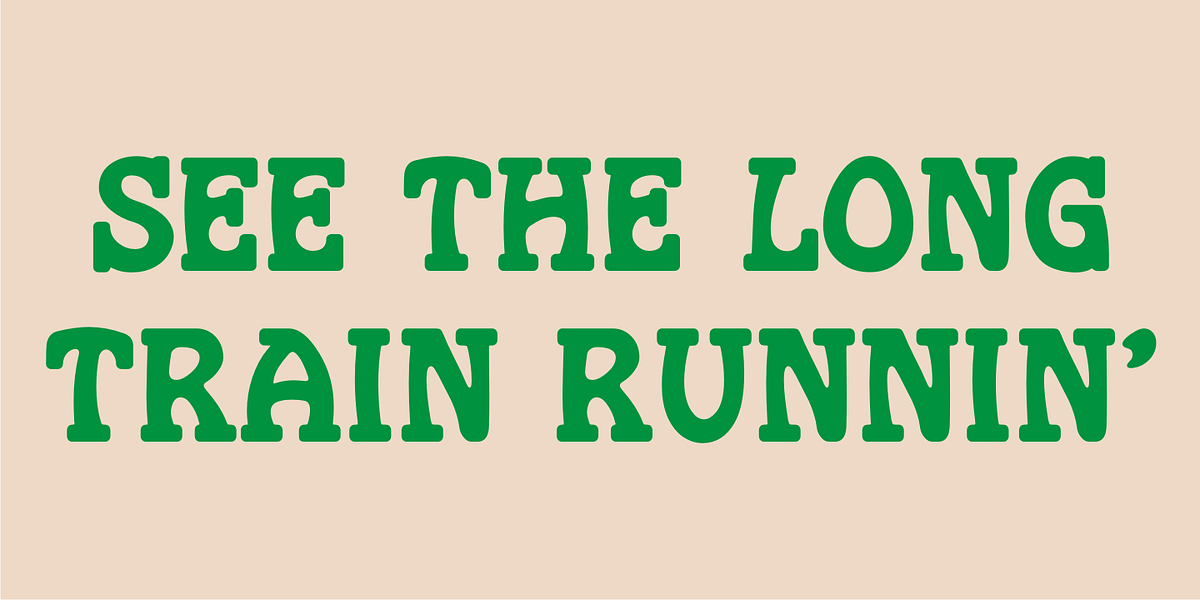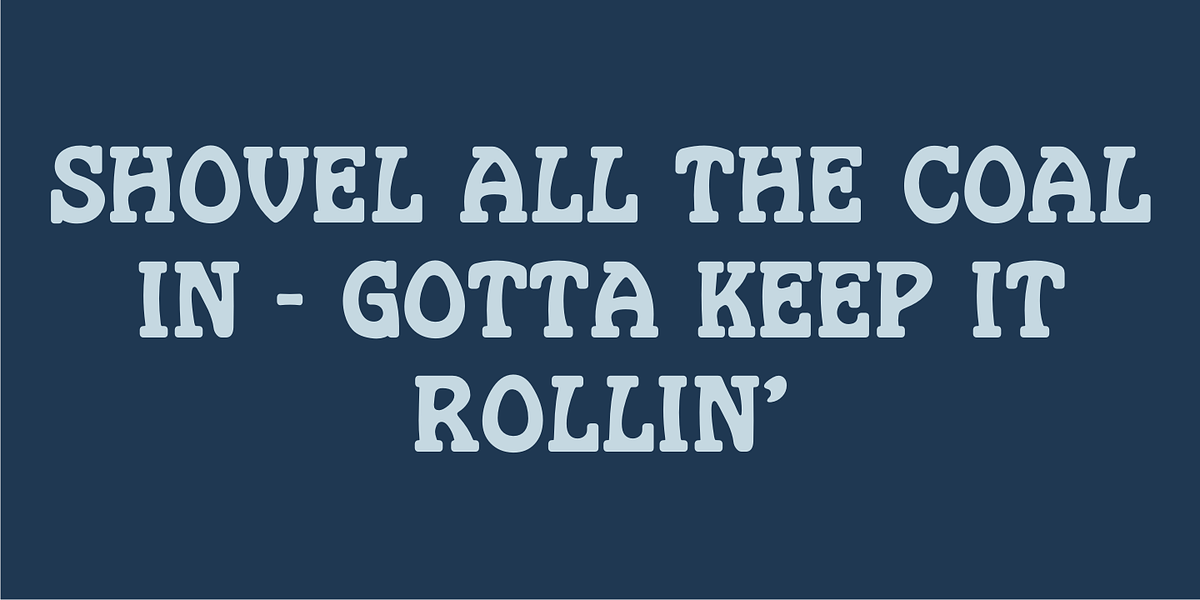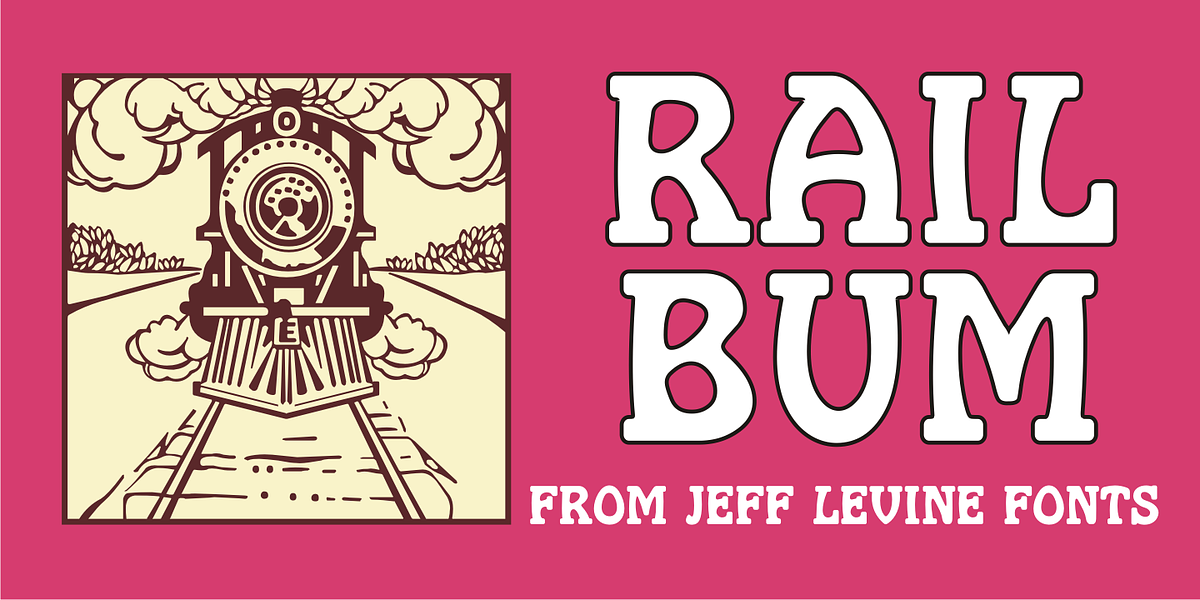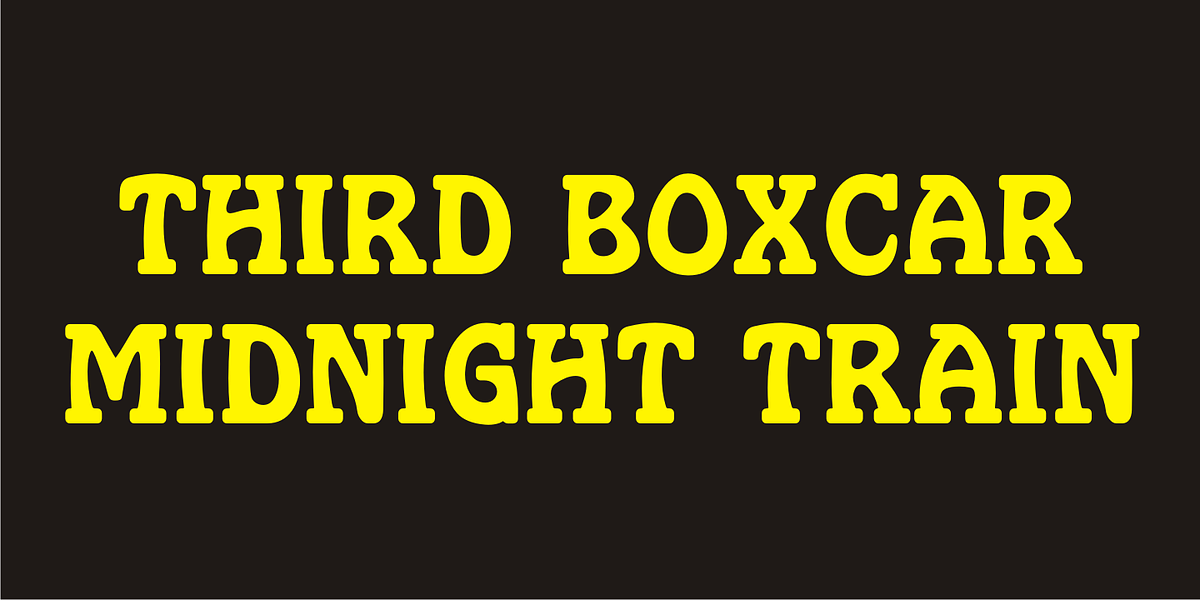
Rail Bum JNL
Morris Fuller Benton's Hobo [designed in 1910] is one of a number of fonts which have been so over-used that many designers shy away from it altogether.
However, Jeff Levine had often wondered what the design might look like it given a serif treatment. The result is Rail Bum JNL, named for the hobos and transients who hitched along on freight cars to ride the rails across the country during the years when trains were the mainstay of American transportation.